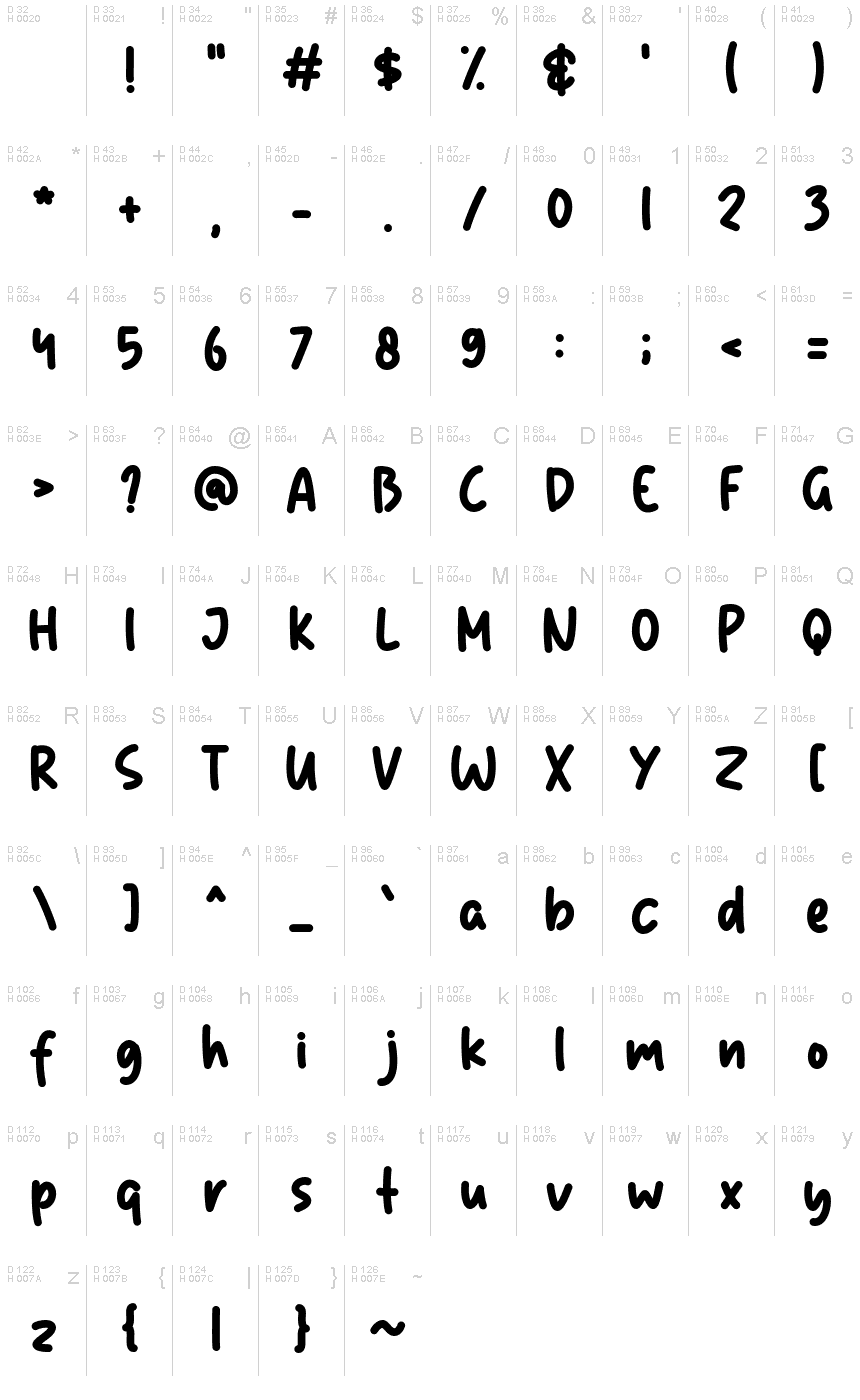
Cute Love
Cute Love, designed by Graphix Line Studio, is a charming handwritten font that adds a touch of playfulness to any project. With its semi-bold weight, this font is perfect for creating eye-catching headlines, invitations, and greeting cards. Its swooping curves and delicate strokes exude warmth and affection, making it an ideal choice for wedding announcements or love-themed designs. Whether you're designing cute social media graphics or crafting adorable children's book covers, Cute Love will effortlessly infuse your projects with a delightful dose of whimsy and romance.